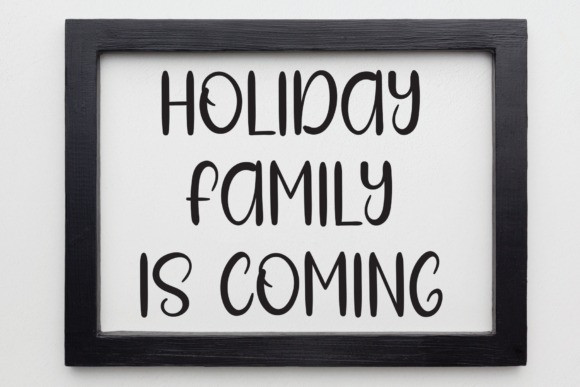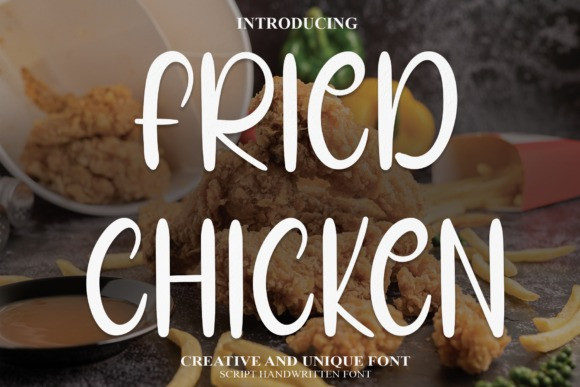
Fried Chicken Font
Fried Chicken Font is a sweet handwritten font that was crafted with great care. It is suitable for logotype, headline font, in corporate identity, brand identity, apparel industry, poster, music, movie, game, magazine, book, comic, cartoon, YouTube, Instagram, website, or any of your creative design projects.